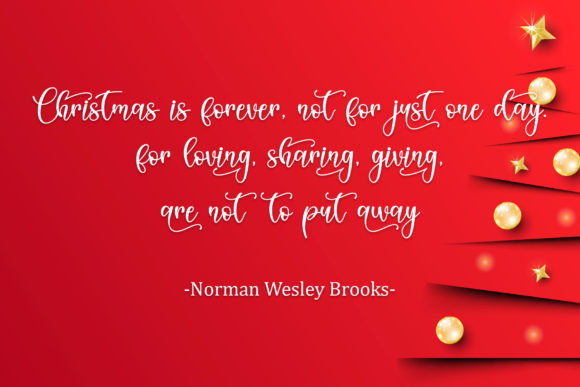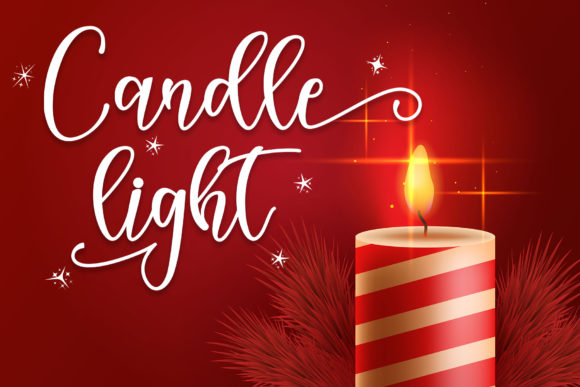
About Christmas Nice Font
Christmas Nice is a flowing, well balanced and beautiful script font. Its sweet and full of life style makes this font a wonderful choice for brightening up your designs. Christmas Nice is PUA encoded which means you can access all of the amazing glyphs and ligatures with ease!